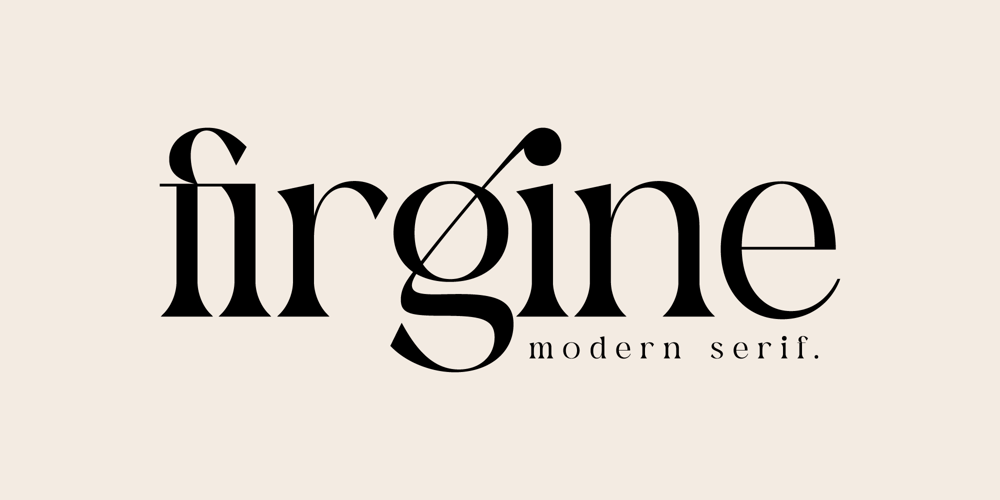
Firgine Font Family was designed by Heru Utama Putra and published by Letterena Studios. Firgine contains 2 styles and family package options. Firgine is a classic serif font with a unique style and modern look. It is perfect for elegant and luxury logos, book or movie title design, fashion brands, magazines, clothes, lettering, quotes, and so much more. Add it now to your creative projects, and they will capture everyone’s attention!This font is PUA encoded, which means you can access all of the glyphs and swashes with ease!